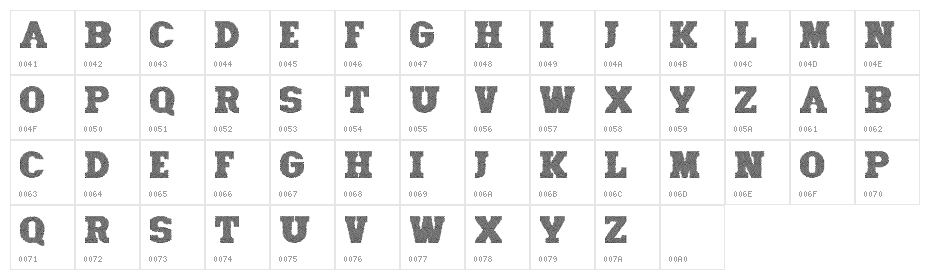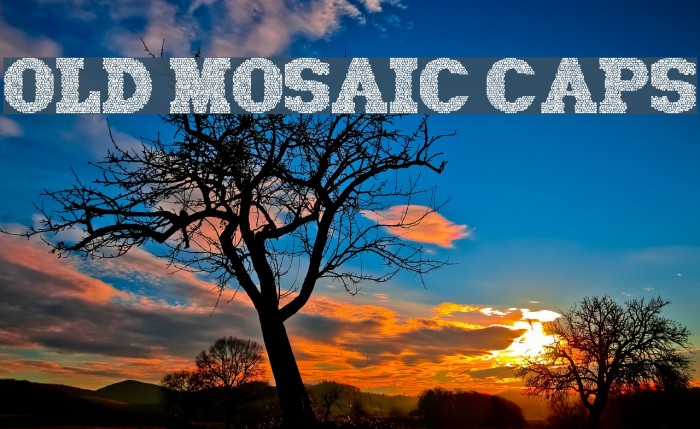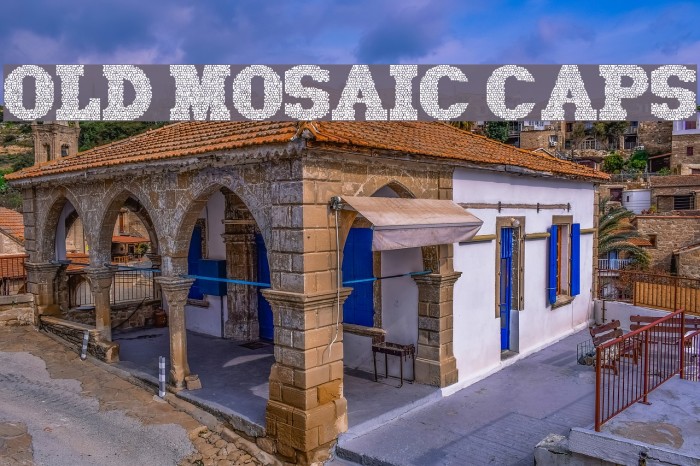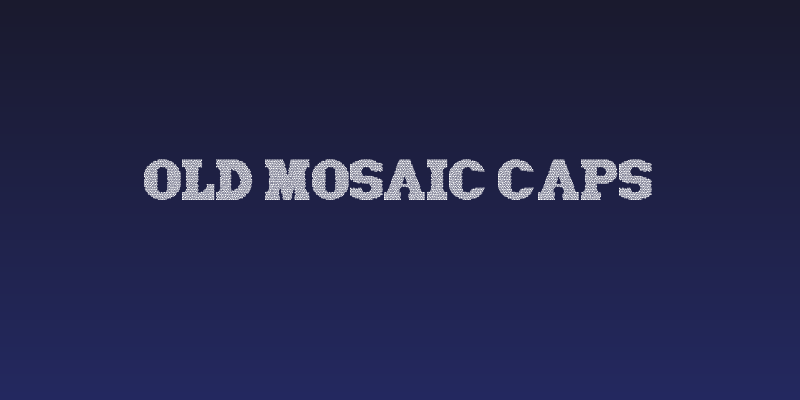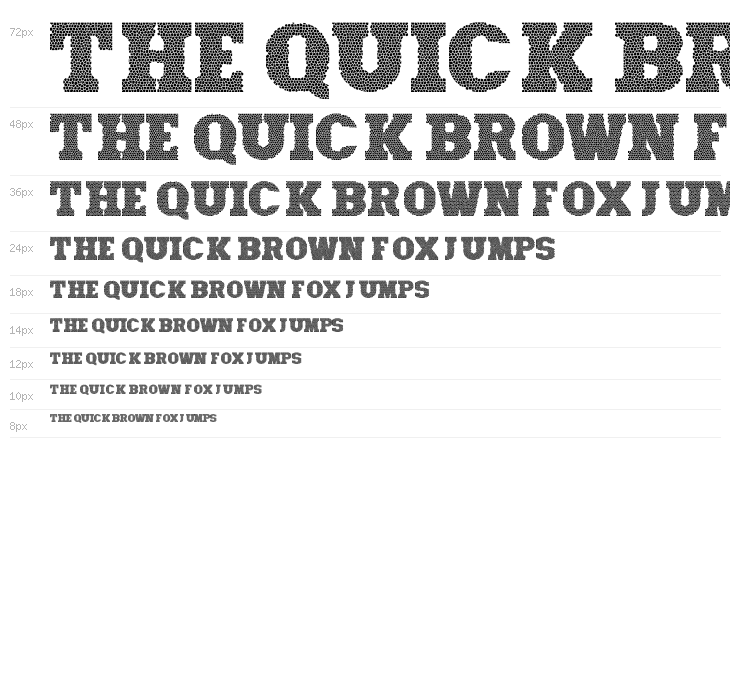
Old Mosaic CAPS Font
Old Mosaic CAPS Description
This font features a bold and decorative style, characterized by its mosaic-like texture that creates a sense of depth and intricacy. Each letter is composed of small, pixel-like elements that form a cohesive and visually striking pattern. The uppercase letters are uniform in height, providing a consistent and balanced appearance. The overall design is reminiscent of vintage mosaic art, making it suitable for projects that require a touch of classic elegance combined with a modern twist. The font's unique texture adds a layer of complexity, making it ideal for eye-catching headlines and artistic displays.
Overall StyleVintage, Decorative
Use CaseHeadlines, Logos, Artistic Displays
Proposed ProjectsIdeal for branding, posters, artistic projects, and any design requiring a vintage yet modern aesthetic.